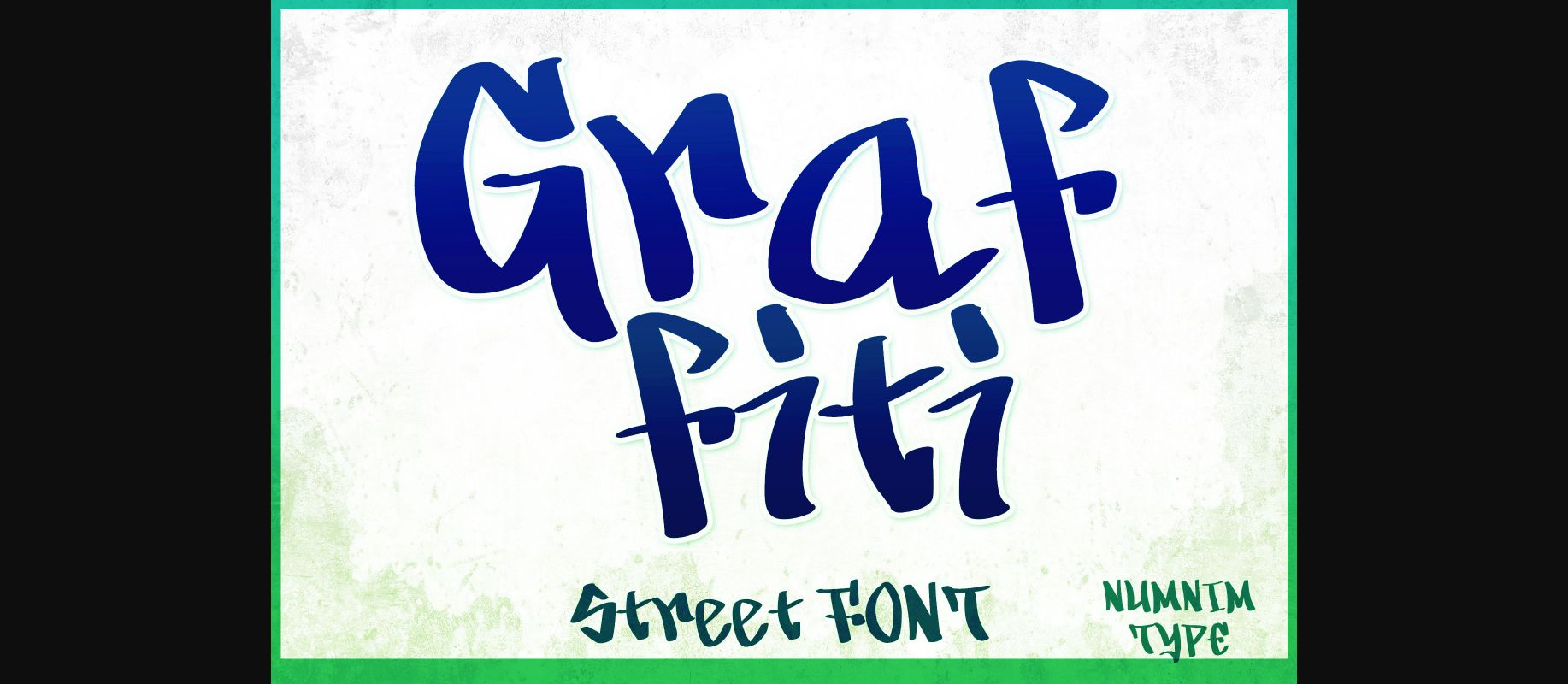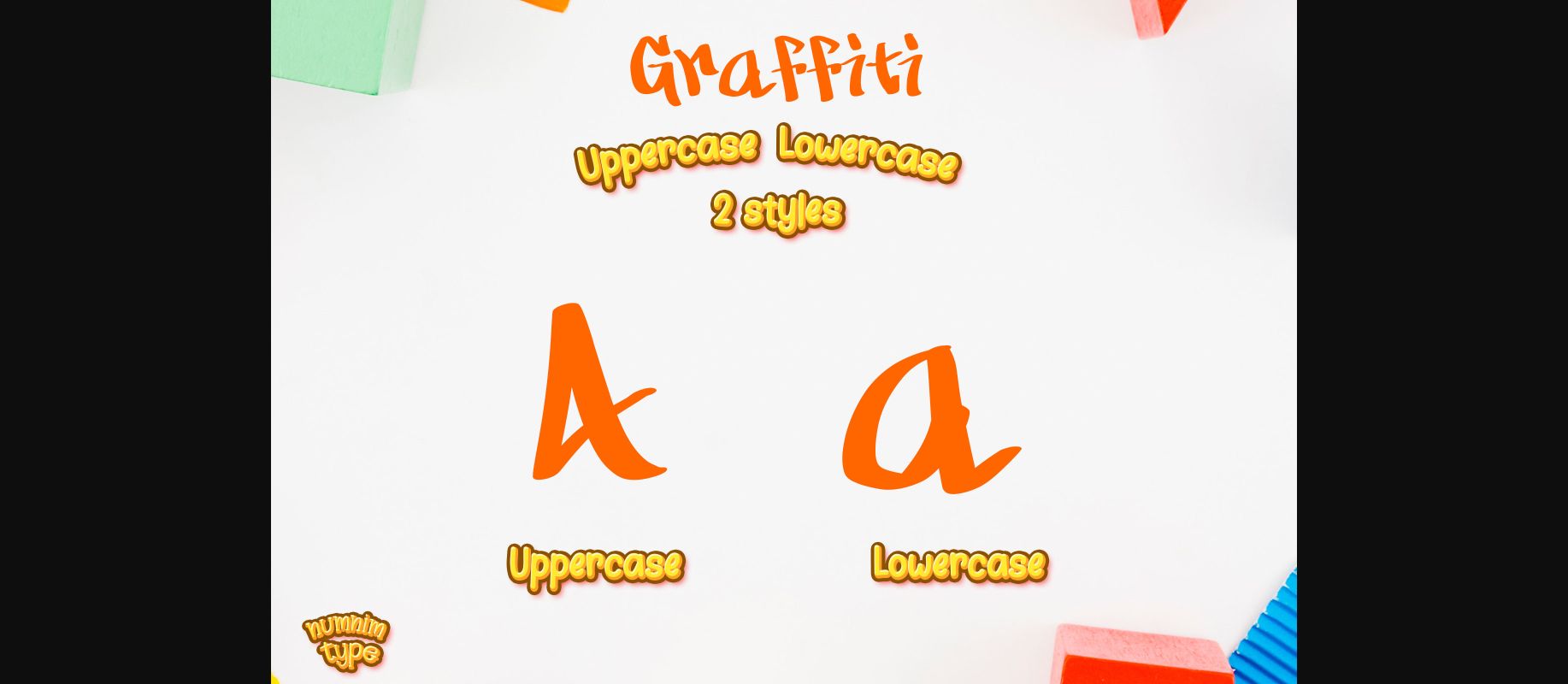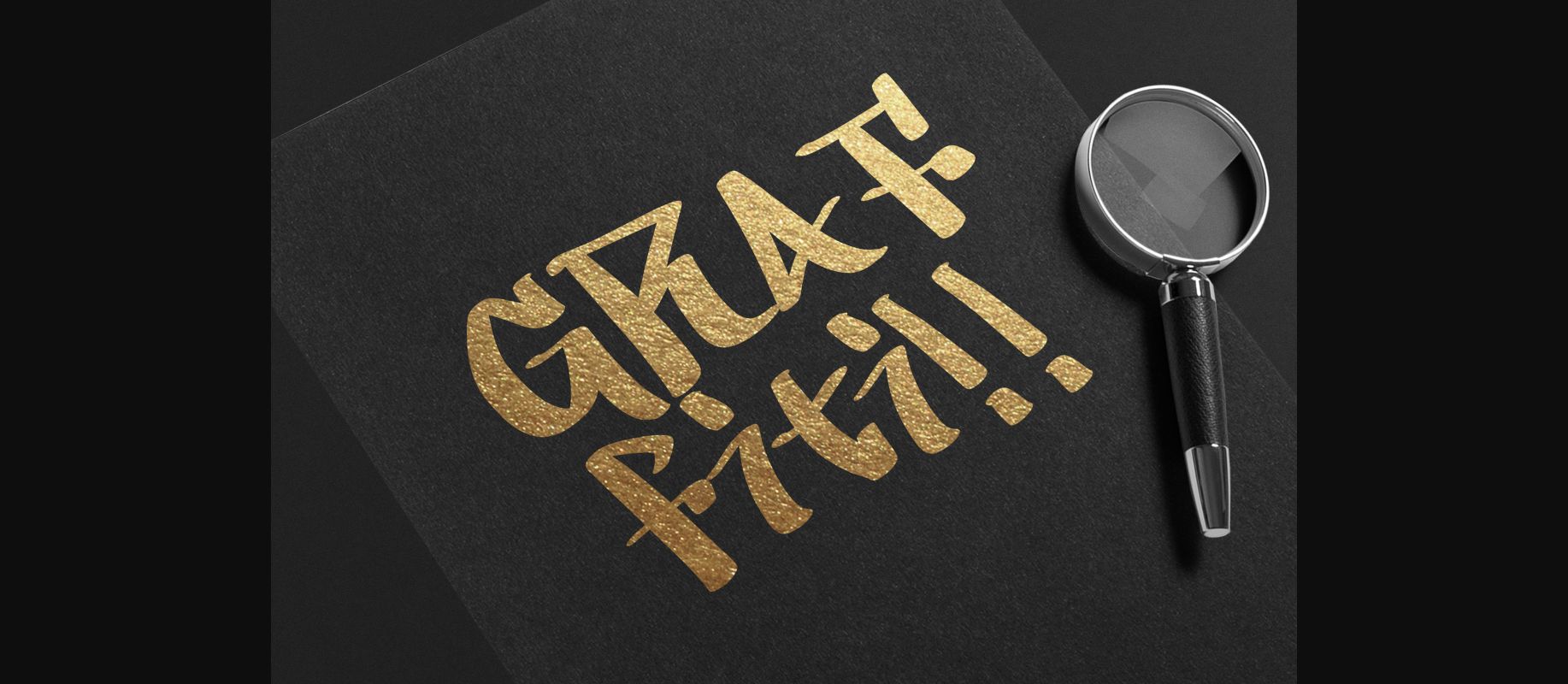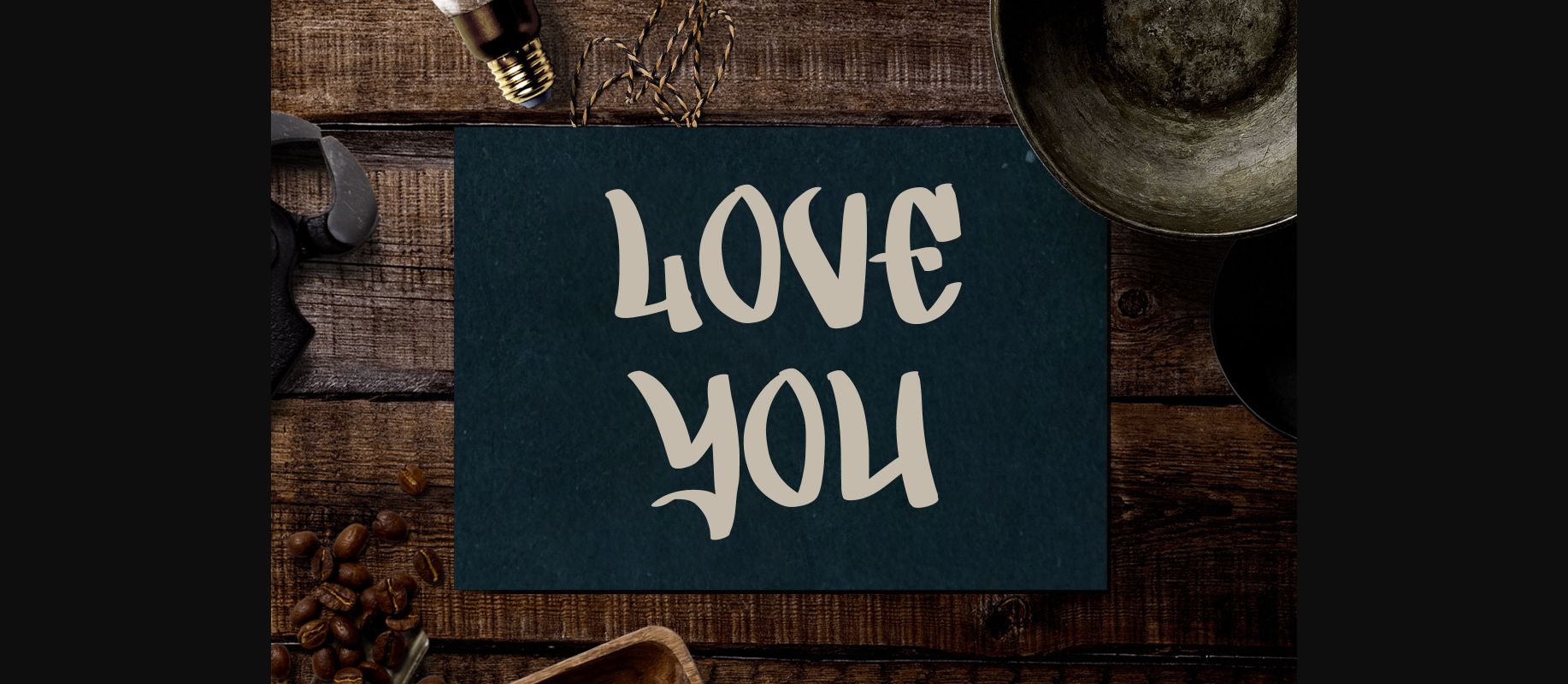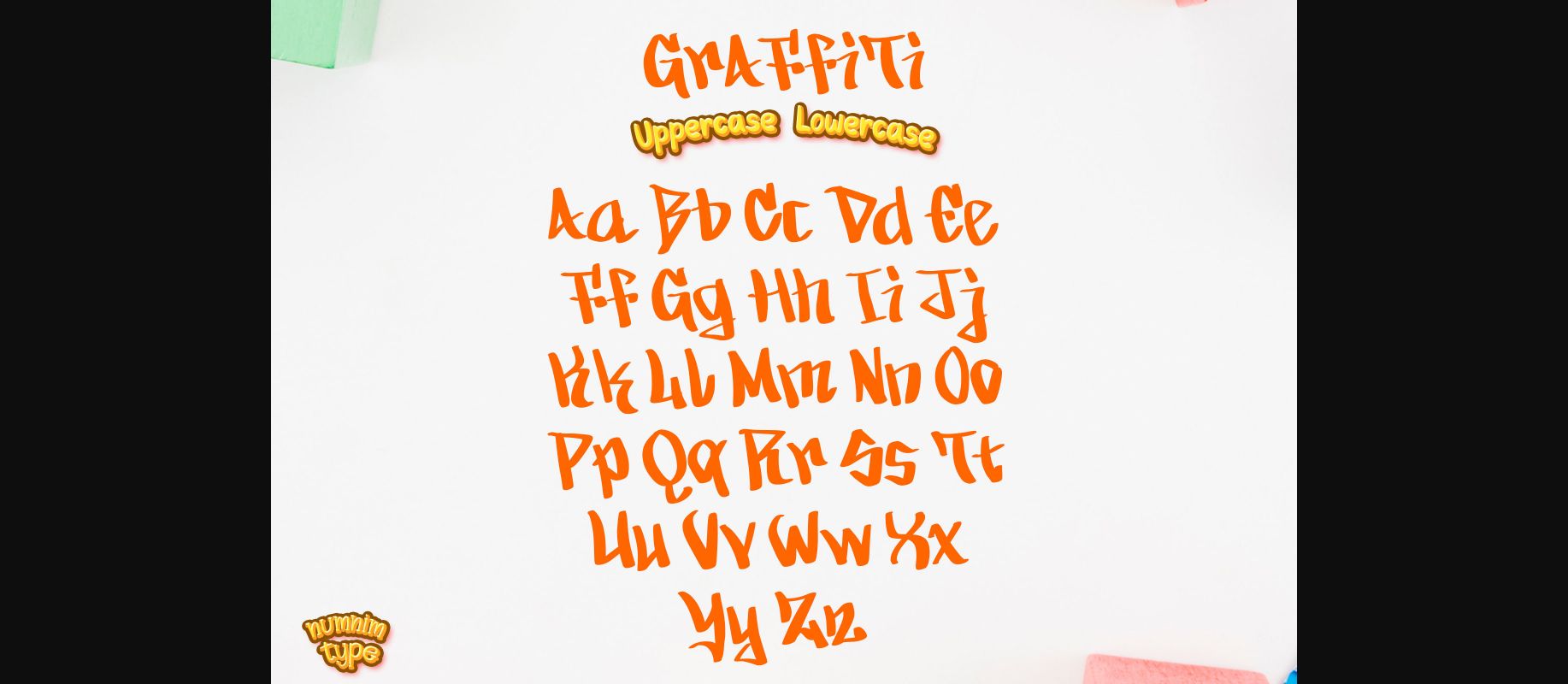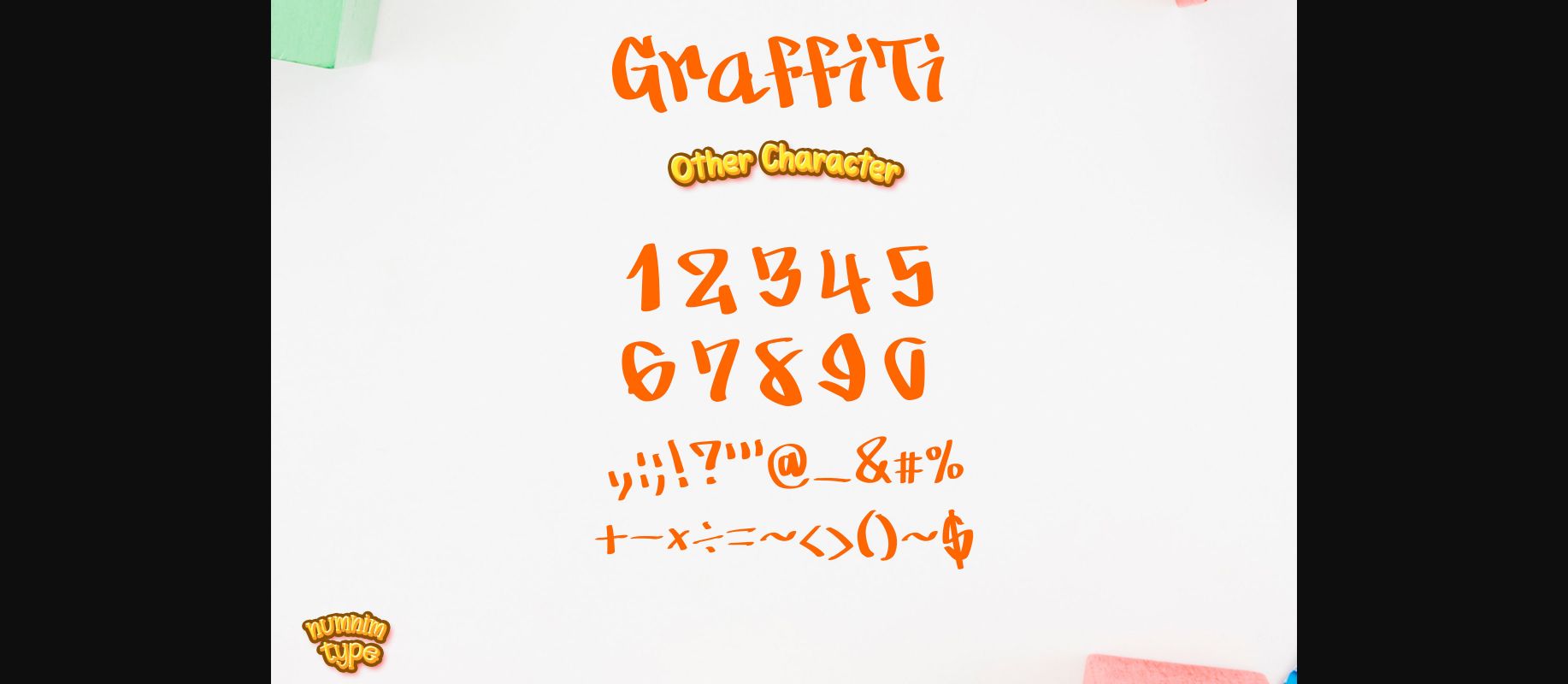
Graffiti Font
About Graffiti Font
Graffiti is a cool and uniquely crafted Street font. Its fun and playful characters make it the perfect font for stickers, mugs, t-shirts, ornaments, Street Graffiti event cards, event invitations, and many more! This font is PUA encoded which means you can access all glyphs and swashes with ease!